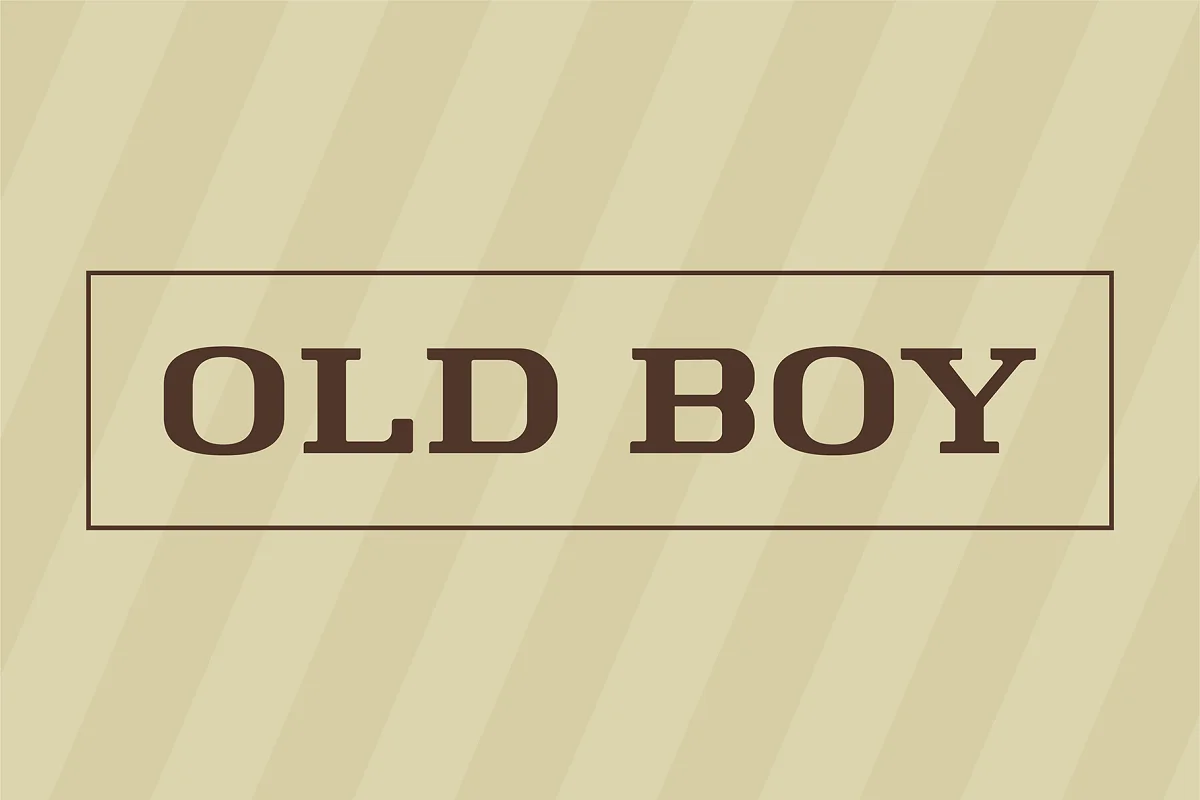
About the Old Boy Font
Old boy is a reveal of sorts. I stumbled upon this typeface in 2016 in San Francisco while walking down Clay Street. It was set in all bronze inside this concrete slab out front of the garage.
I kind of fell in love with it and after taking a few photos of the signage and trying to find the actual typeface to no avail I decided to recreate it.
I had about 90% of the uppercase character set from that signage to work from. From there I finished out the uppercase letterforms and went about creating the lowercase.